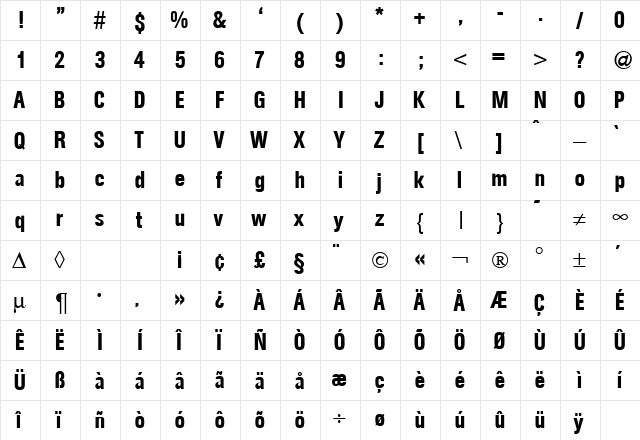
AtkinsCondMedium Regular Font Preview
AtkinsCondMedium Regular
Design Context for AtkinsCondMedium Typeface
AtkinsCondMedium offers clean, dependable letterforms without strong stylistic allegiance, making it a practical choice for designers who need flexibility. The condensed width makes it efficient for tight spaces without sacrificing legibility.